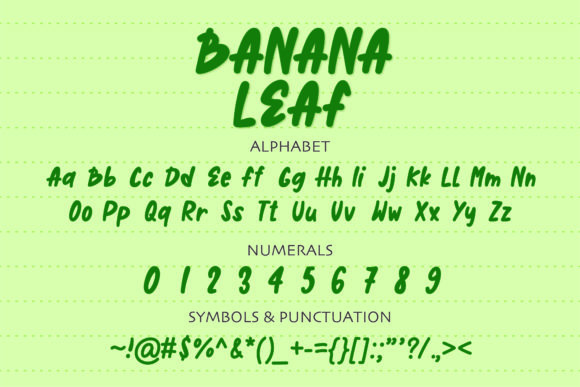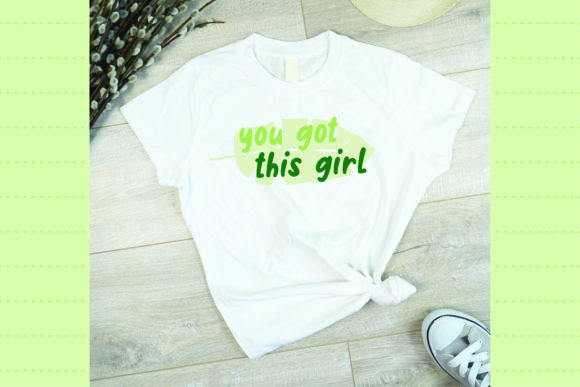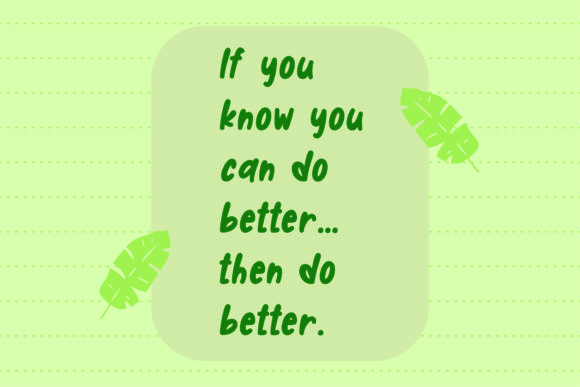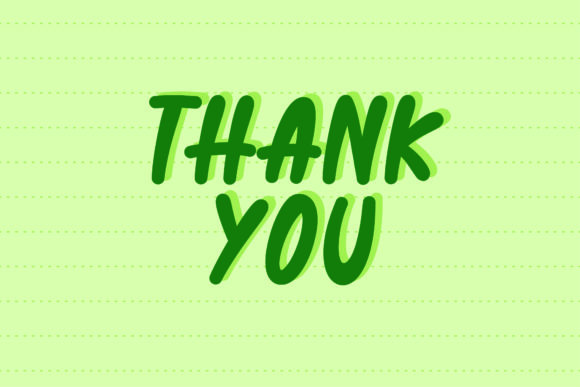
Banana Leaf Font
About Banana Leaf Font
Banana Leaf is a casual handwritten font. Its natural and unique style makes it incredibly fitting to a large pool of designs. The only limit is your imagination! It looks stunning on wedding invitations, thank you cards, quotes, greeting cards, logos, business cards, and every other design which needs a handwritten touch.